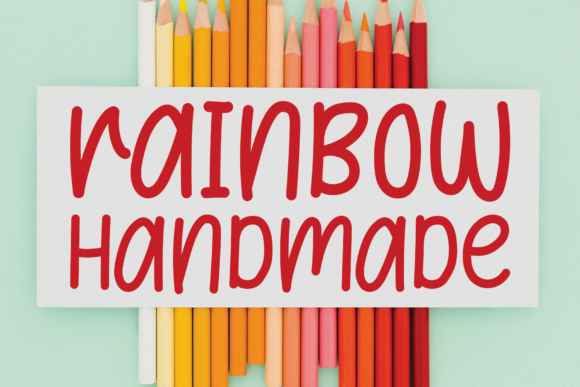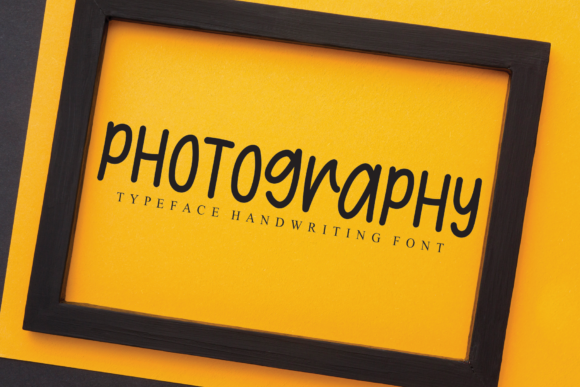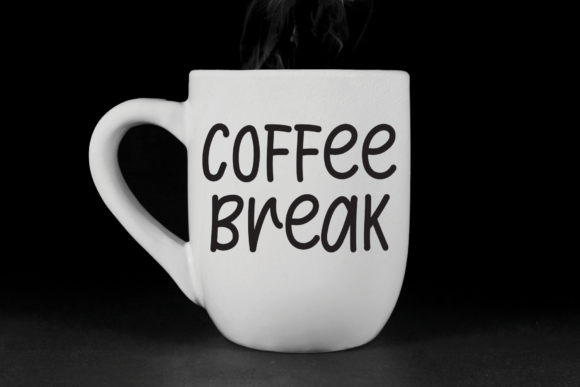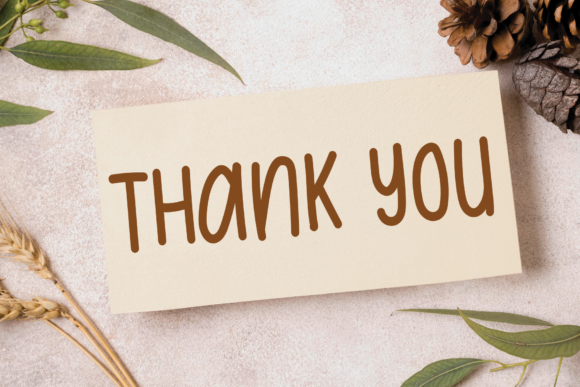
The Sweet Spot: Discovering the Charm of Chocolate Font
I’ll never forget the time I was working on a handmade stationery project for a client who specialized in artisanal candles. She wanted a font that would evoke a sense of warmth and coziness, something that felt like a warm hug on a cold winter’s night. As I scrolled through font after font, nothing seemed quite right – until I stumbled upon Chocolate Font. It was love at first sight! The elegant, handwritten curves and natural flow instantly captured the essence of her brand. In this article, I’ll share with you why Chocolate Font has become a staple in my design toolkit and how you can make the most of its charming features.
An Honest Review: The Good, the Great, and the Quirky
So, what makes Chocolate Font so special? Let’s dive into the details.
- ✨ Effortless elegance: Chocolate Font boasts a beautiful, handwritten look that’s perfect for adding a touch of sophistication to any design.
- ✅ Versatility: From letterheads and titles to stationery and more, this font adapts seamlessly to various design applications.
- 💫 Readability: The clear, flowing script makes it easy to read, even at smaller font sizes.
While Chocolate Font is an excellent choice for many projects, there are a few things to keep in mind:
- 🤔 Limited formal use: Due to its handwritten nature, Chocolate Font might not be the best fit for extremely formal or corporate designs.
- ⚠️ Glyph limitations: As with many handwritten fonts, some characters or glyphs might not be available or might require additional setup.
The Story Behind Chocolate Font: A Designer’s Inspiration
Chocolate Font was created with the intention of capturing the warmth and elegance of handwritten scripts. The designer aimed to craft a font that felt both natural and refined, perfect for a wide range of creative projects. By drawing inspiration from traditional calligraphy and modern typography, Chocolate Font was born – a beautiful, versatile font that’s perfect for adding a touch of sophistication to any design.
Q: Is Chocolate Font suitable for body text?
A: While Chocolate Font is beautiful, it’s best suited for headings and titles due to its decorative nature. For body text, a more traditional font might be more readable.